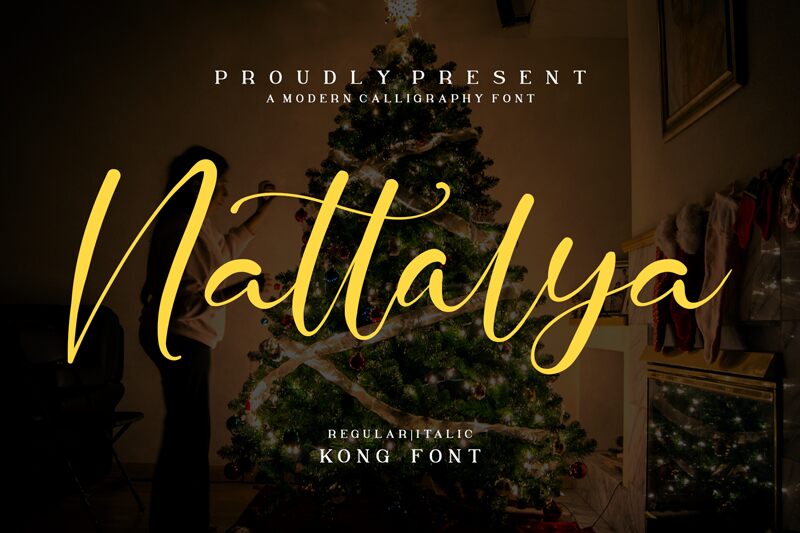
Nattalya font family by Kong Font consists of 4 calligraphy font styles inspired by timeless handwriting. These stylish fonts present long lines, soft edges, and elegant circular forms. Each typeface is expressive, flowing, fashionable, and elegant. The characters are connected with an artistic and artistic flow. The font family combines sophistication and creativity transforming regular designs into distinguished ones.
Nattalya is clear and easy to read, despite the seemingly complex arrangement and positioning of its letters. Therefore, you can easily use it in presentations dealing with branding and advertising for businesses, logotypes and slogans, and stationer products like magazines, newspapers, and catalogs. Posters, flyers, greeting cards, and book covers will also excellently carry the handwriting font and its beautifully flowing characters.